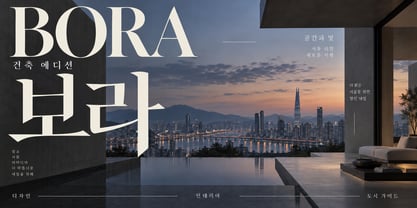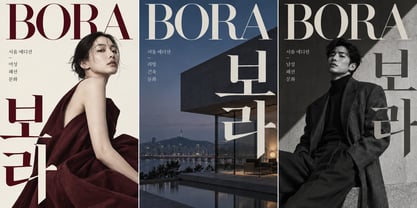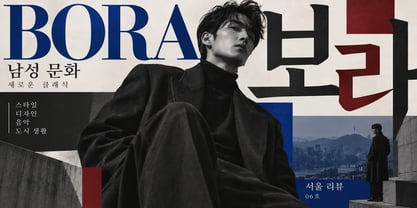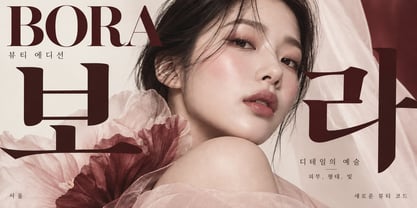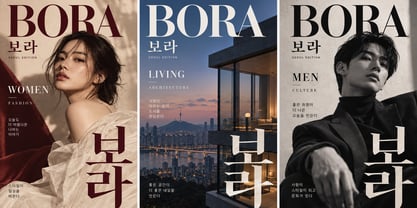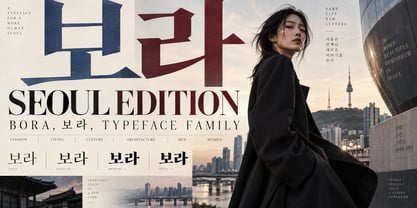
Bora
Bora is a contemporary Korean typeface family designed for expressive editorial communication. Combining refined proportions with a distinctive Korean visual character, Bora supports Hangul and Latin writing systems in a unified typographic style.
The family includes seven weights: Thin, ExtraLight, Light, Regular, Medium, Bold and Black. Its carefully balanced range allows designers to create both delicate text settings and powerful display compositions.
Bora is designed for fashion magazines, editorial layouts, branding, packaging, posters, advertising, architecture, lifestyle projects and cultural publications. The family’s flexible weights provide a smooth transition from elegant light typography to bold, commanding headlines.
With its modern structure and strong display presence, Bora brings a sophisticated Seoul-inspired character to contemporary design projects.